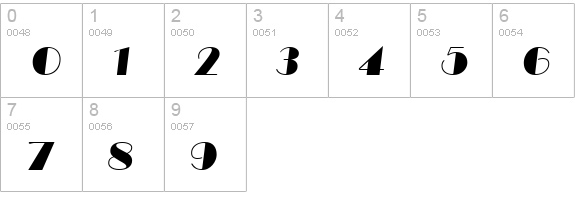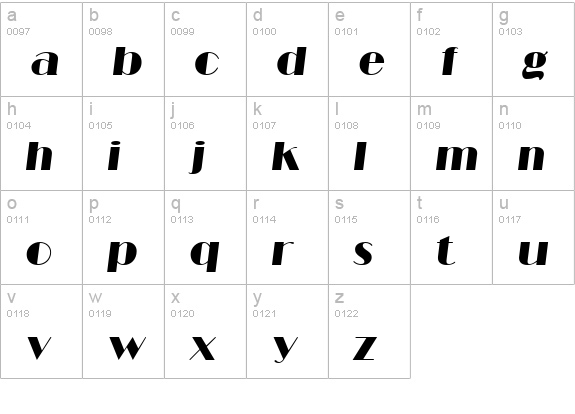
Barbe Display SSi Italic is a distinctive, italic variant in the Barbe typeface family \xE2\x80\x94 well suited to design and typography projects.
Barbe Display SSi Italic font is a stunning and elegant typeface that exudes sophistication and style. Its italicized design adds a touch of flair and modernity, making it perfect for a wide range of design projects. Whether you're creating invitations, posters, or branding materials, this font will elevate your work to new heights. The sleek curves and flowing lines of Barbe Display SSi Italic font make it a versatile choice for both digital and print design. Its readability and unique character make it stand out from the crowd, ensuring that your message is conveyed with impact and style. Best of all, Barbe Display SSi Italic font is available for free download at FontsMarket.com. This means that you can easily access this beautiful typeface and use it in your projects without any cost. Don't miss out on the opportunity to enhance your designs with this fabulous font – download it today and let your creativity shine!